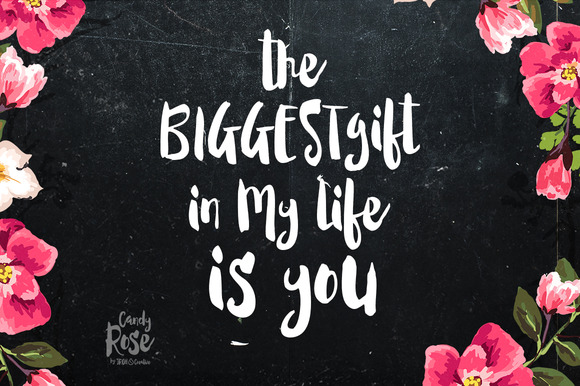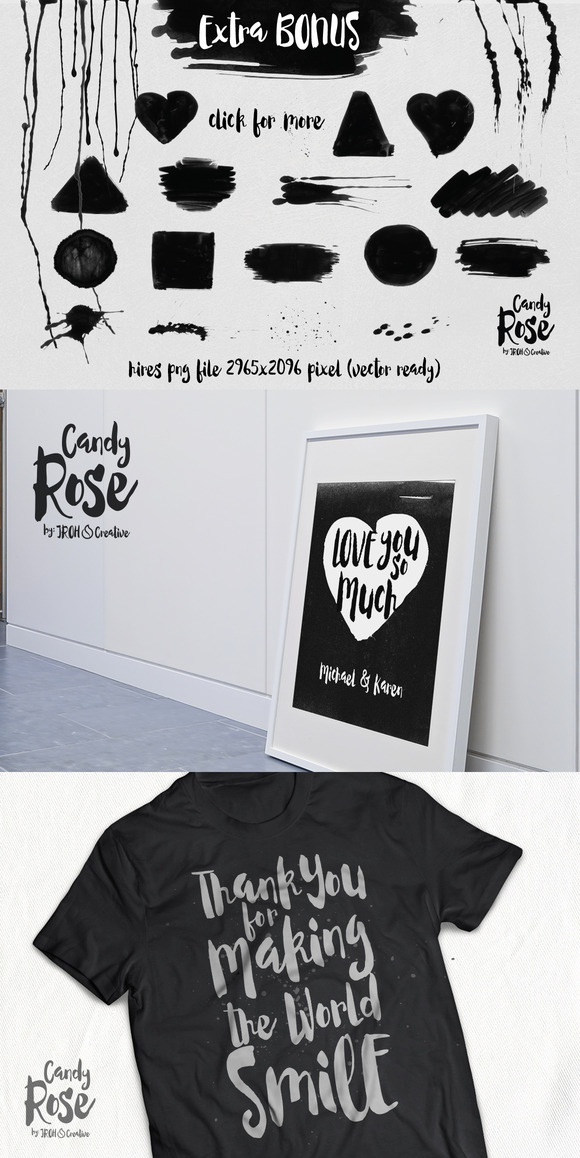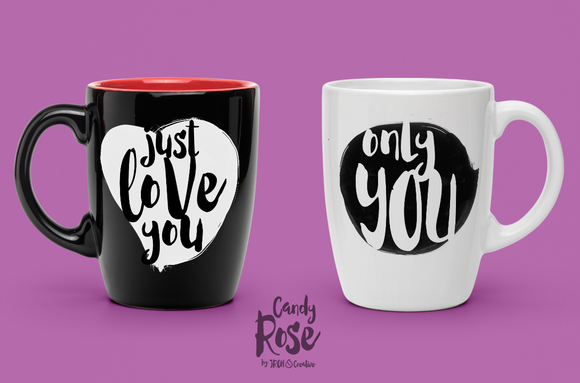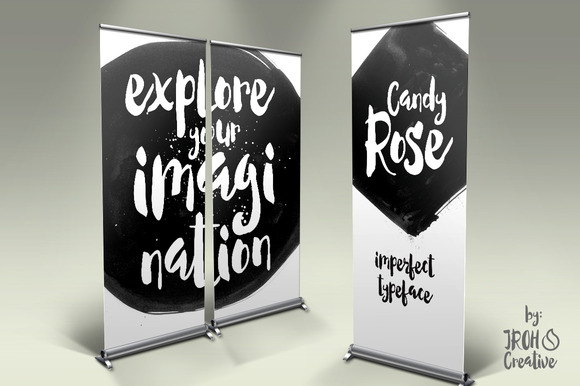
CandyRose font
CandyRose Font
Introducing CandyRose is beautiful irregular modern script. Imperfect style, spontaneous brush and easy flow give the natural looks. Great for designing book covers, film covers, apparel, cards, logos, poster, souvenirs, T-Shirt, etc.